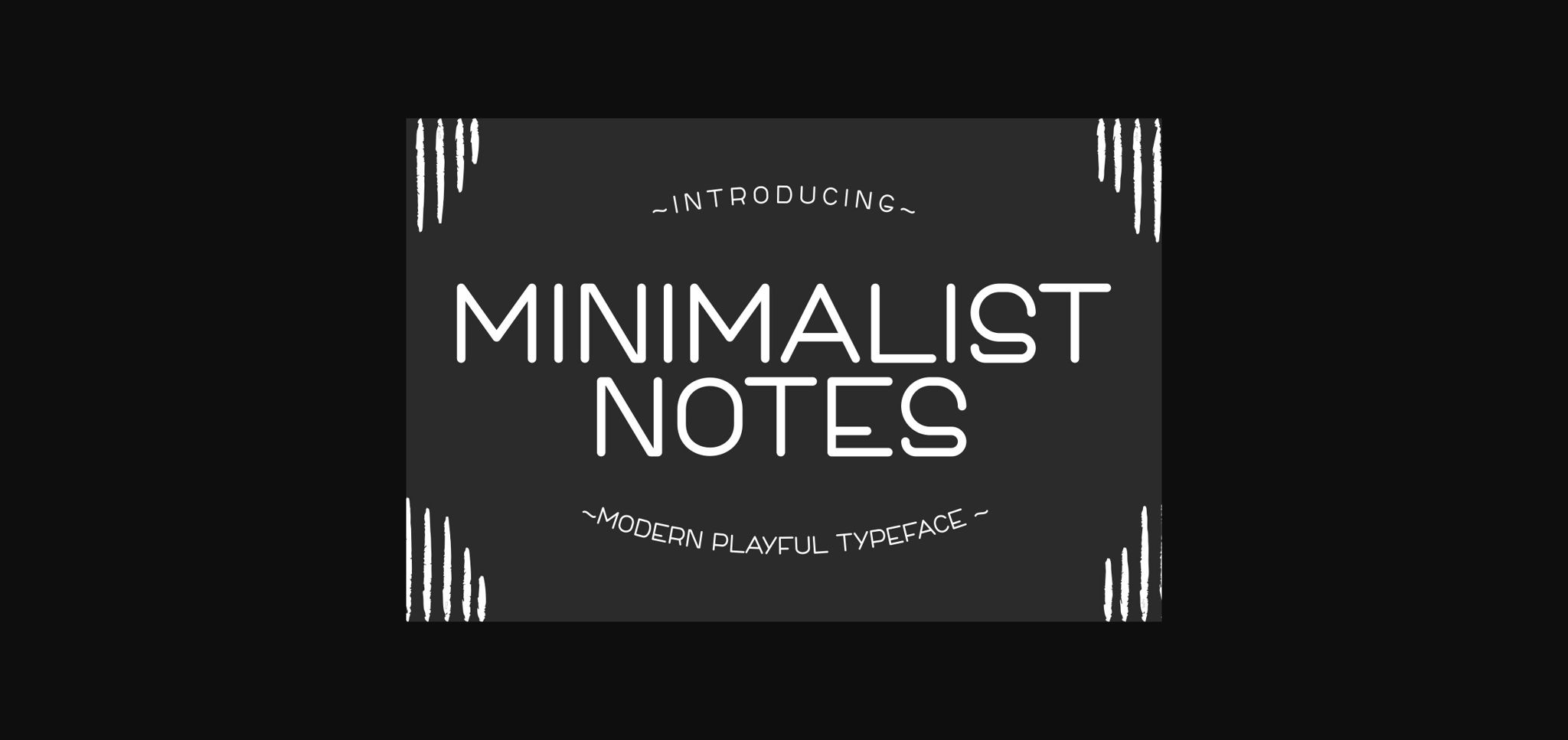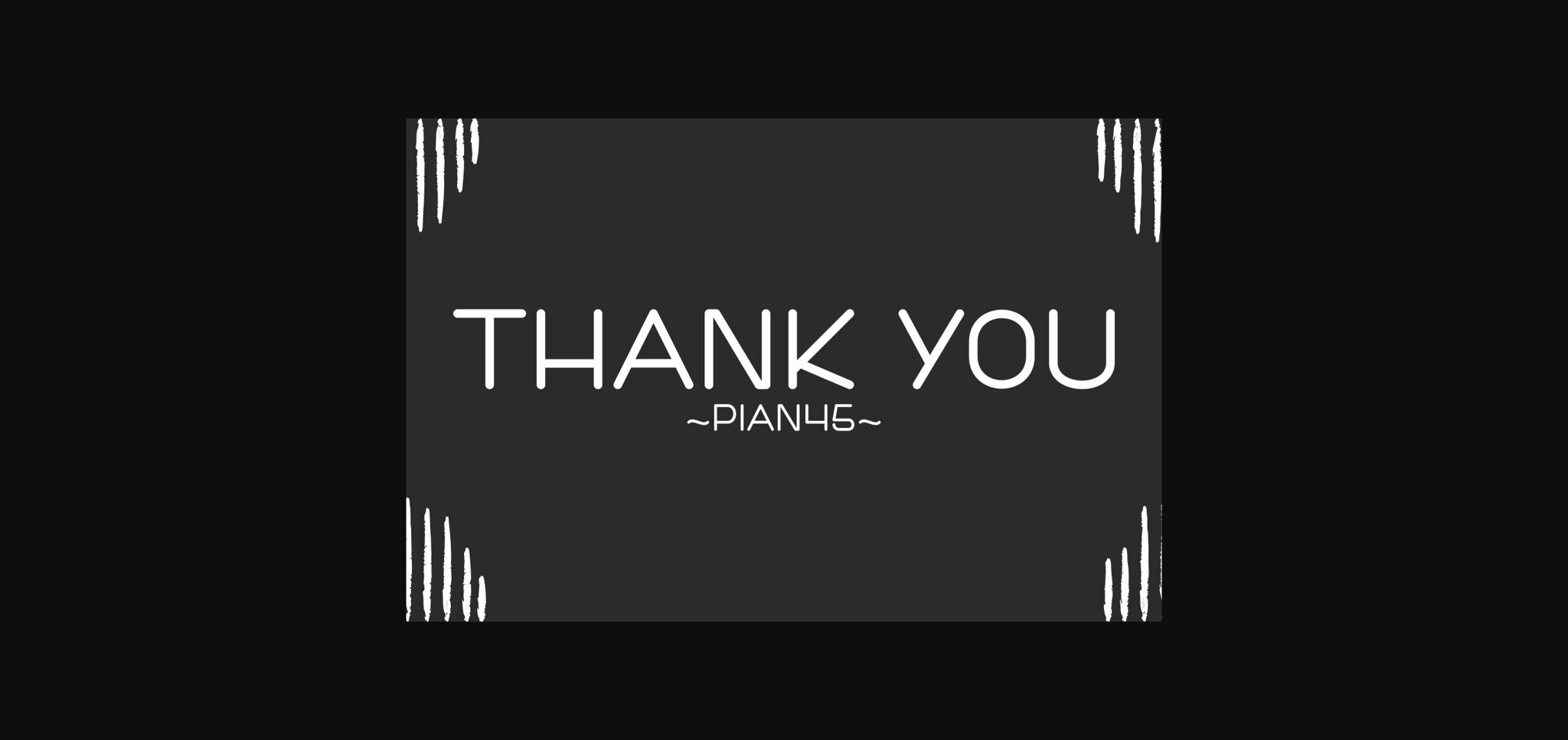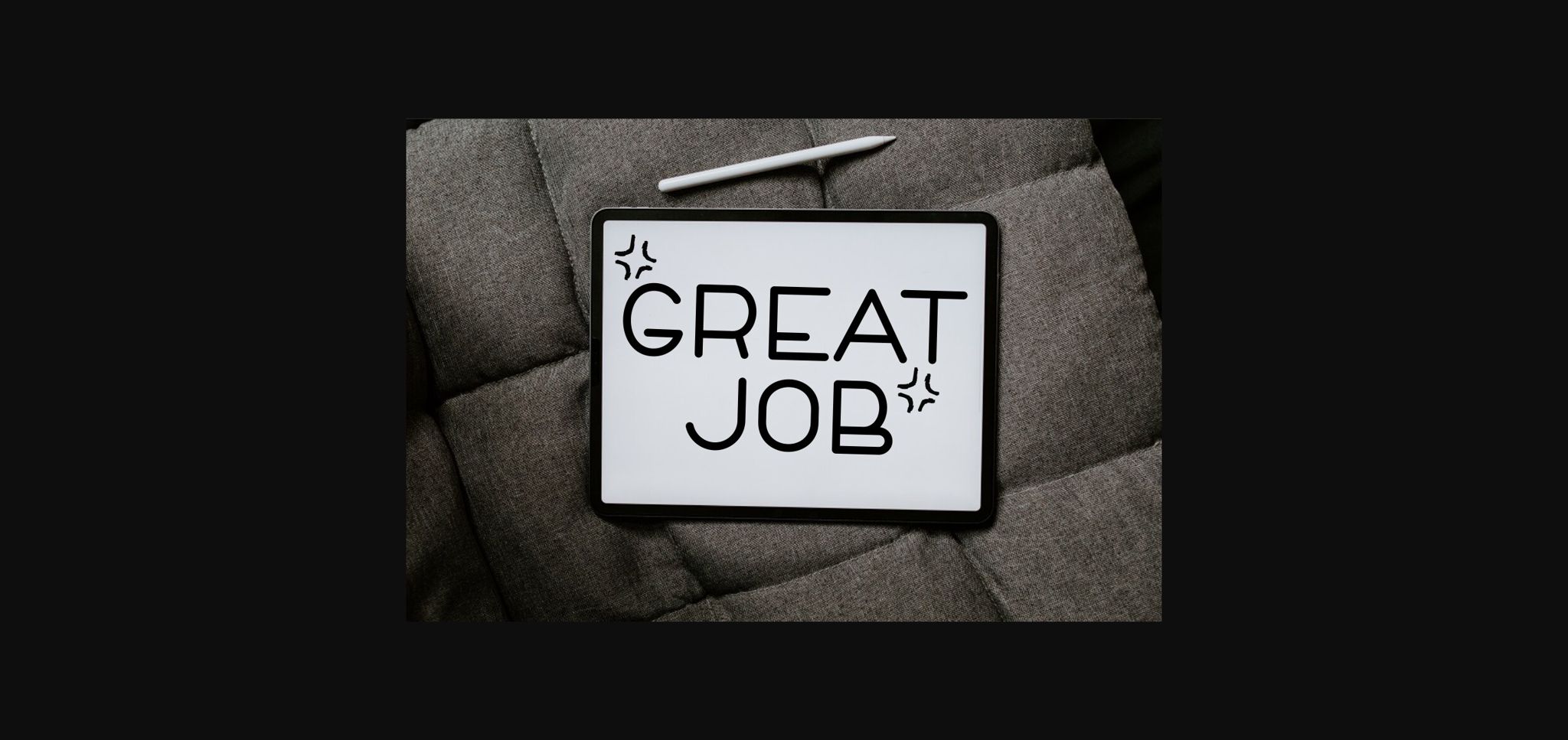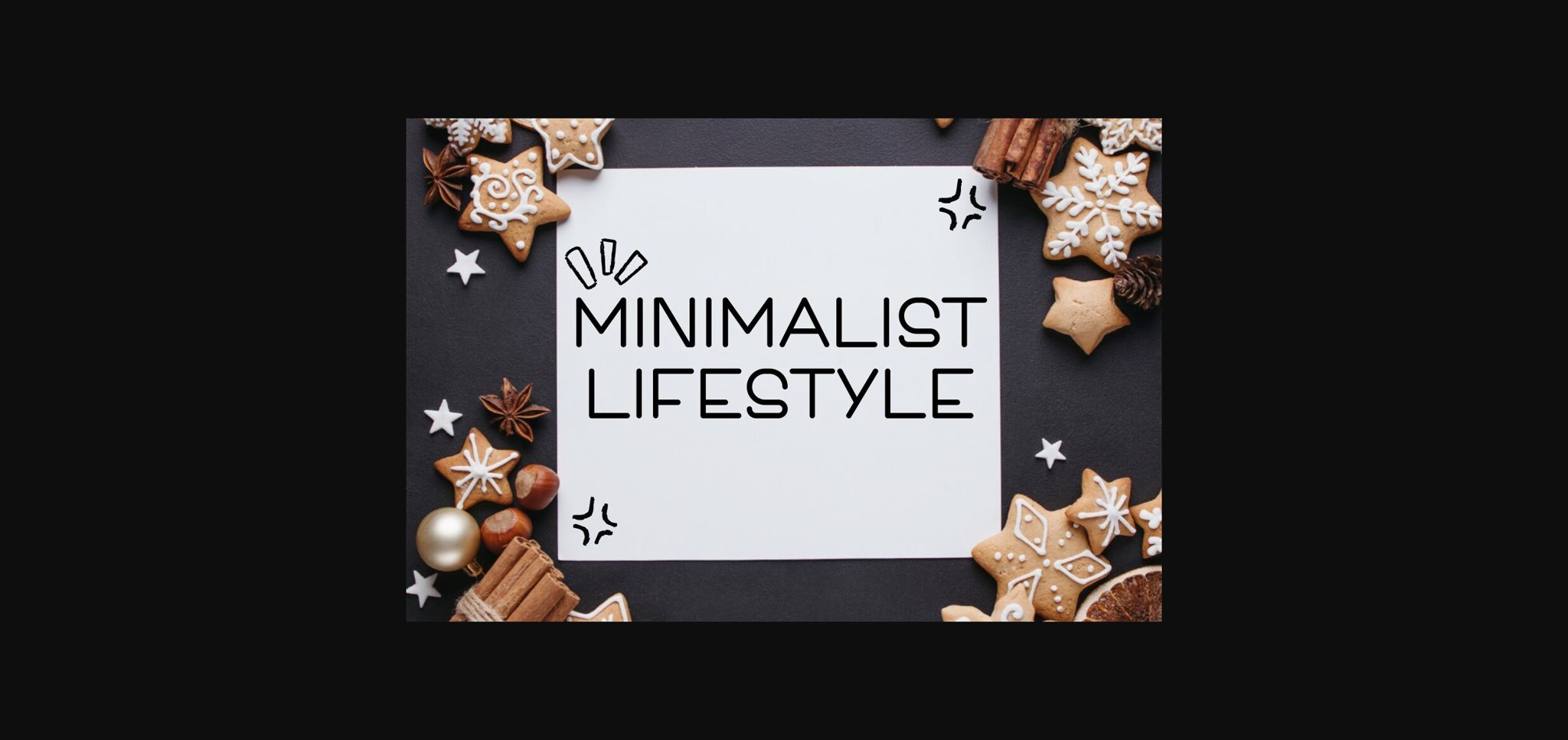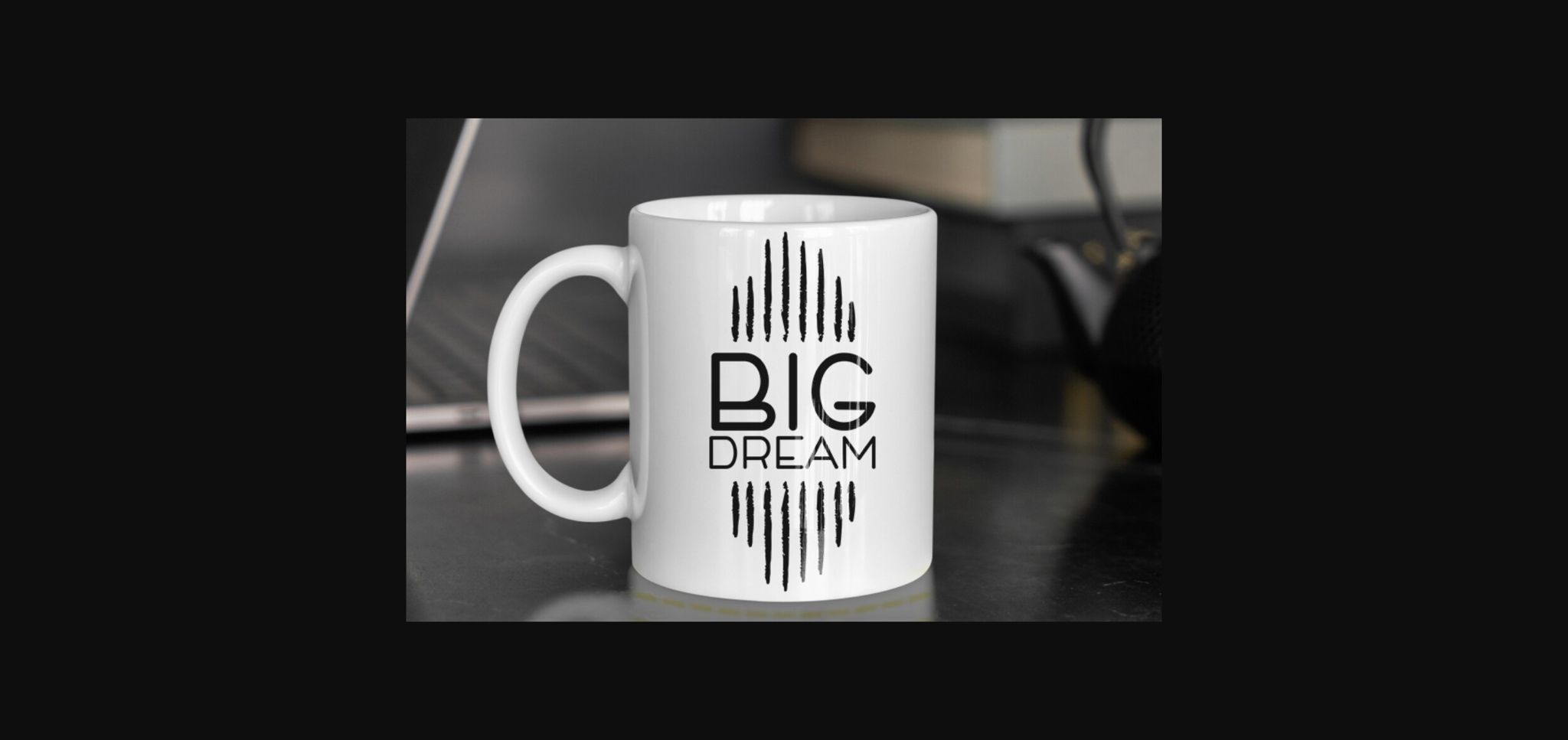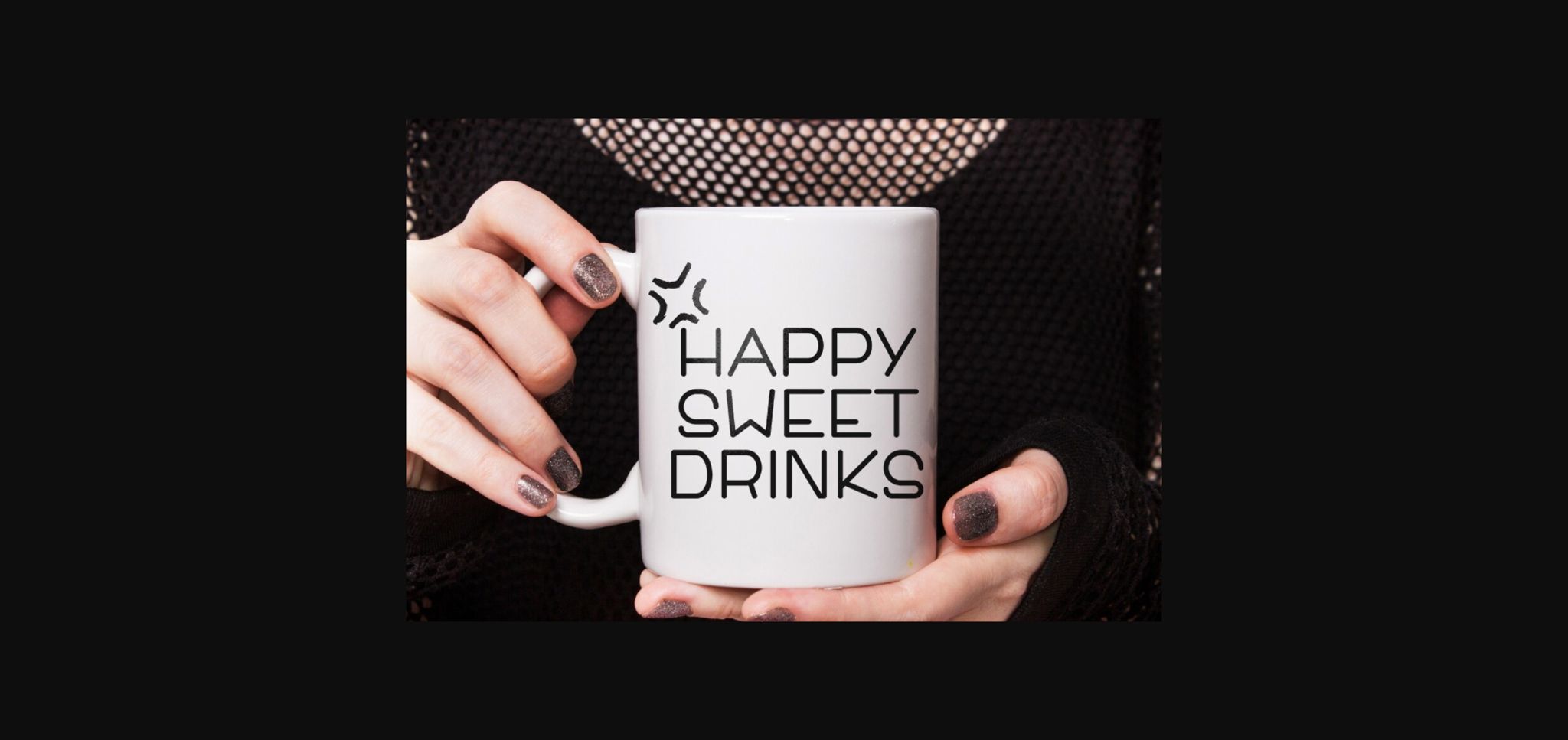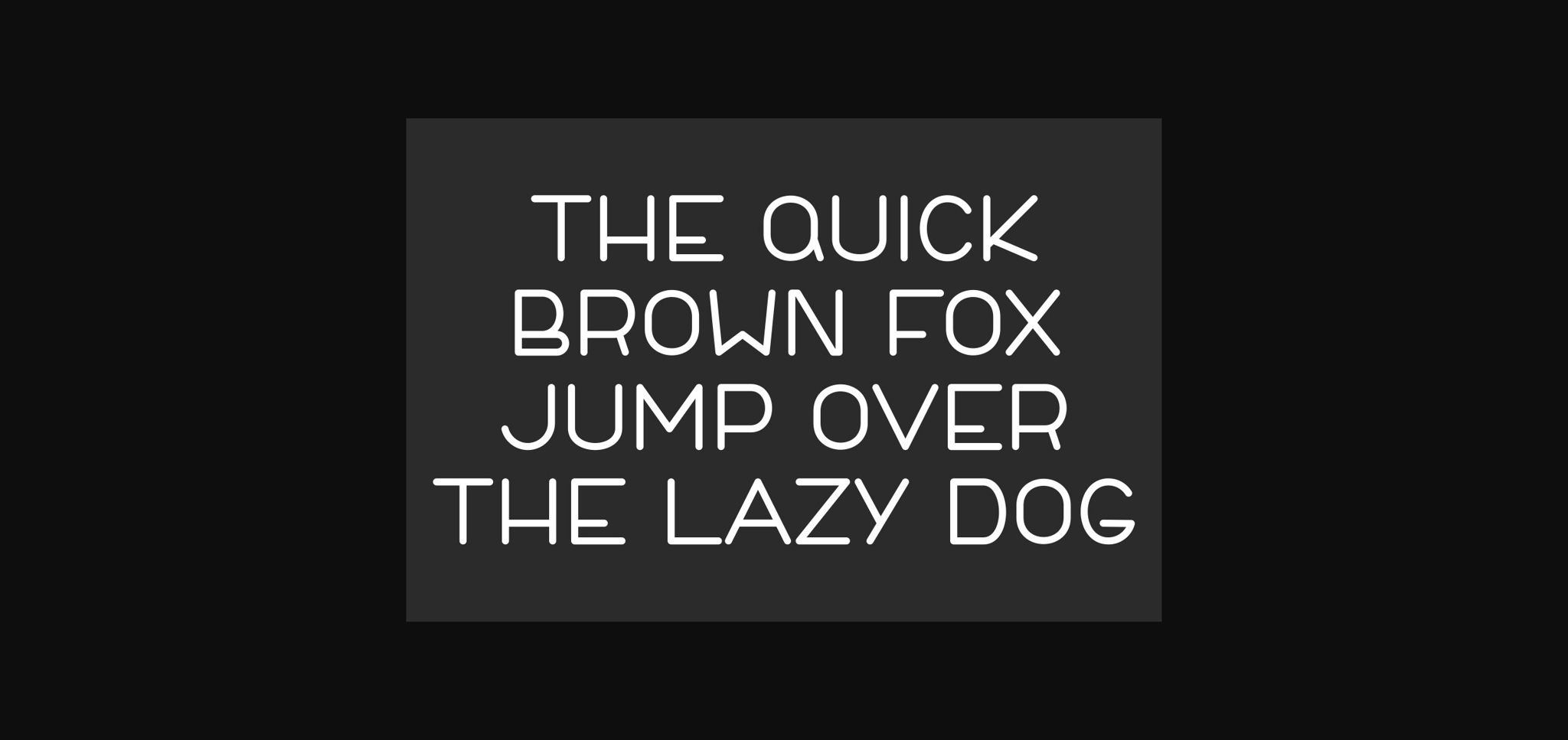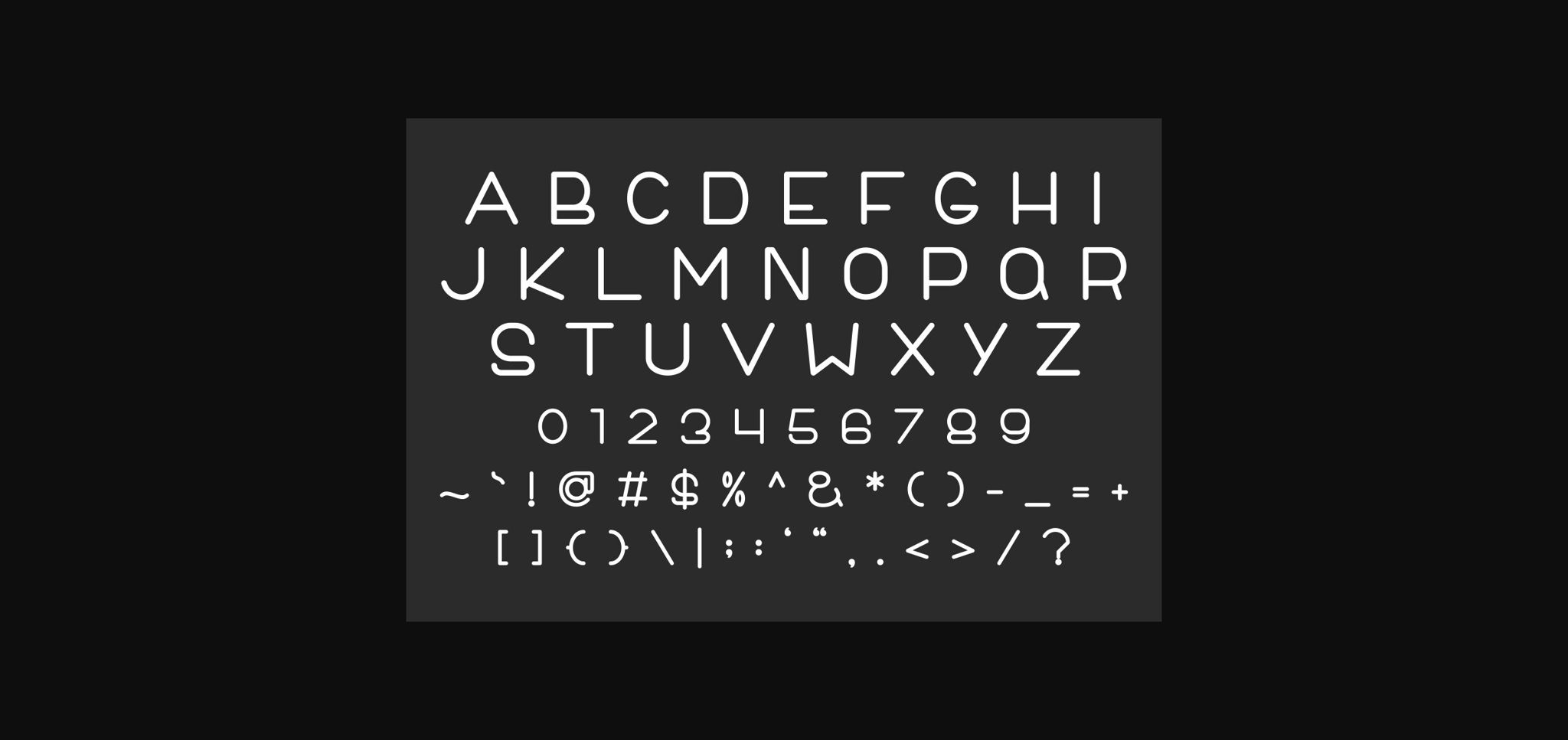
Minimalist Notes Font
About Minimalist Notes Font
Minimalist Notes is a modern and playful font designed with a minimalist sans-serif style. Minimalist Notes brings a fresh font and effortlessly combines simplicity and playfulness making it an ideal choice for various educational materials.